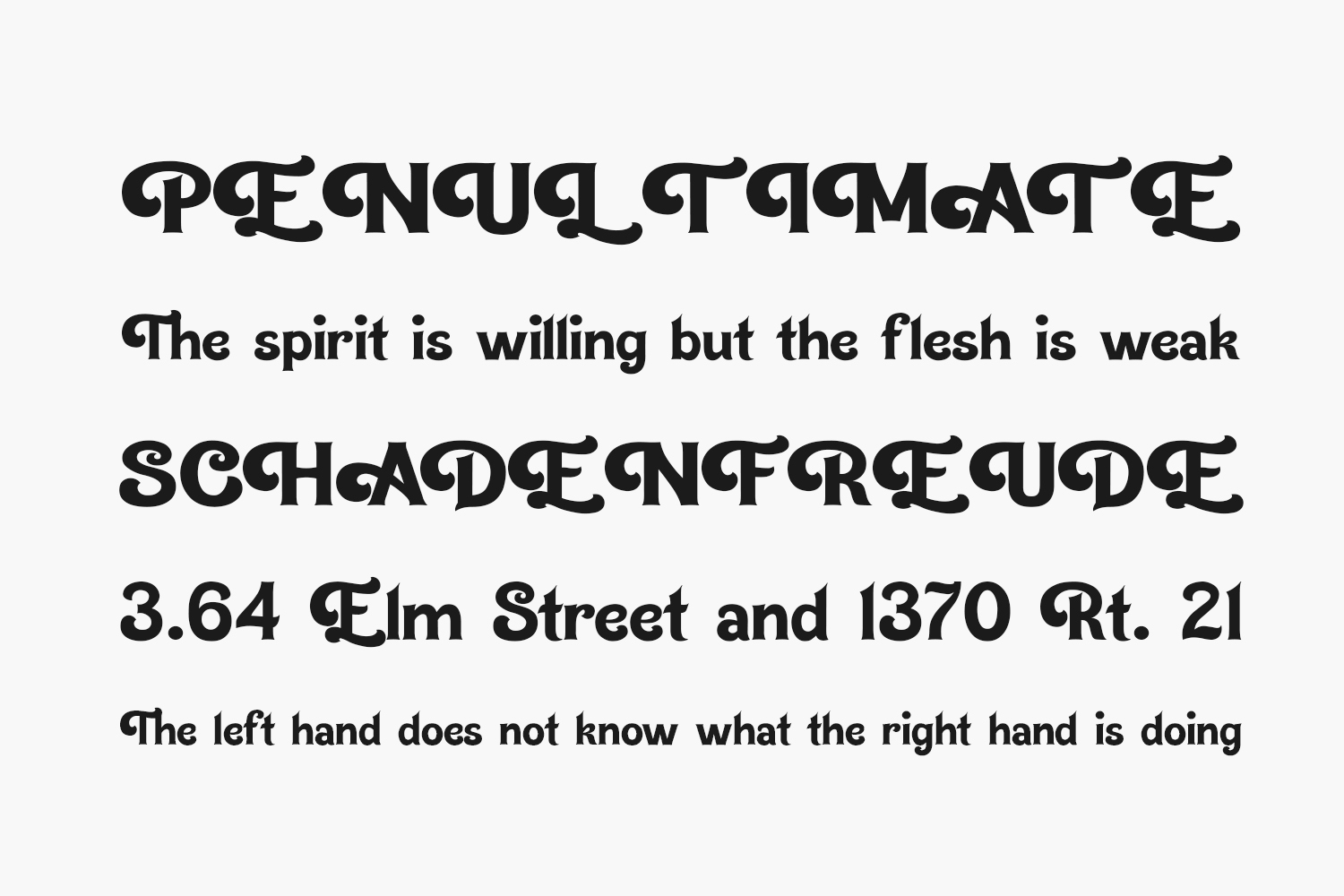
Boogie Boys Free Font Family Boogie Boys, a retro-inspired display font that merges classic serif elements with lively swashes, exuding style and personality. With three layers at your disposal, achieving a striking 3D effect is effortless. Its playful vibe lends itself perfectly to a variety of creative endeavors, from captivating wall art to trendy apparel and memorable brand identities. Download the font for free if you need it for personal use or purchase the full version for commercial use.
Designed by Onne Hermawan